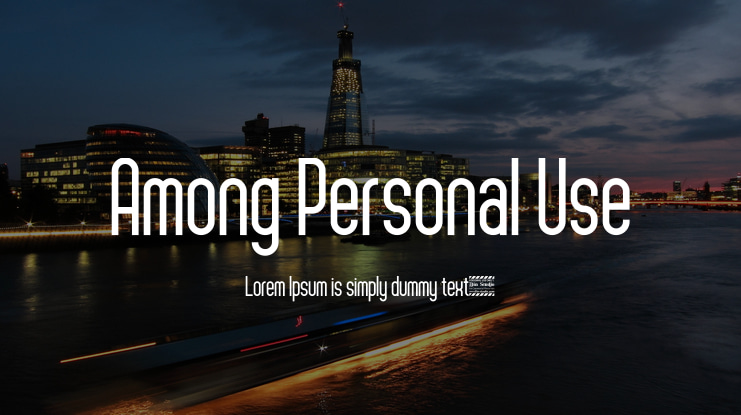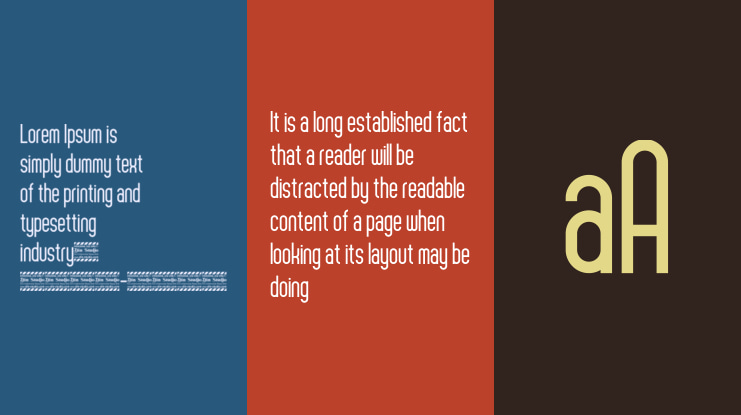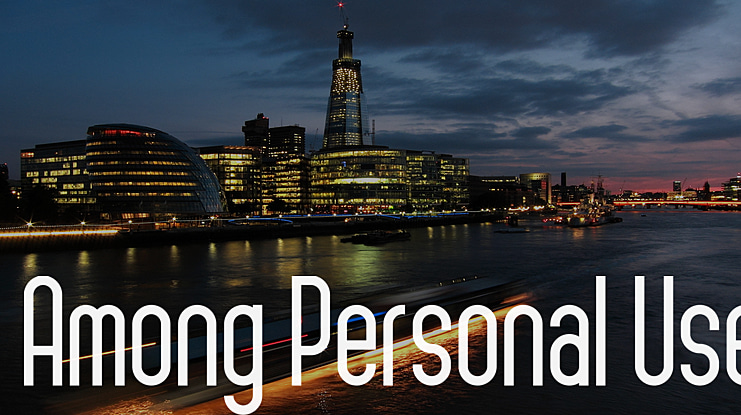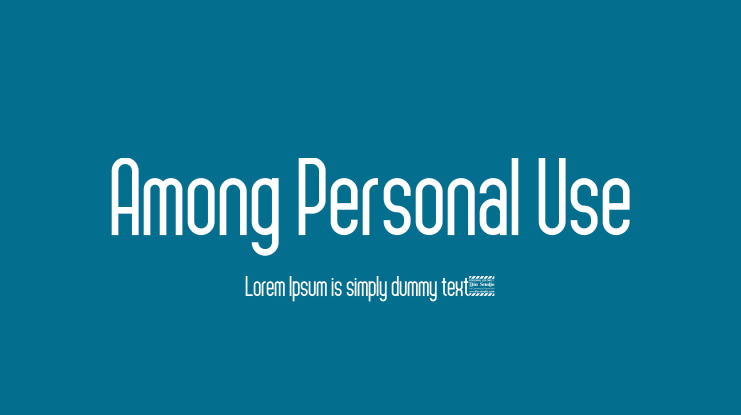
Among is a beautiful sans serif font. Made for any professional project branding. It is perfect for printing, branding and quotes. Every letter has a unique and beautiful touch.